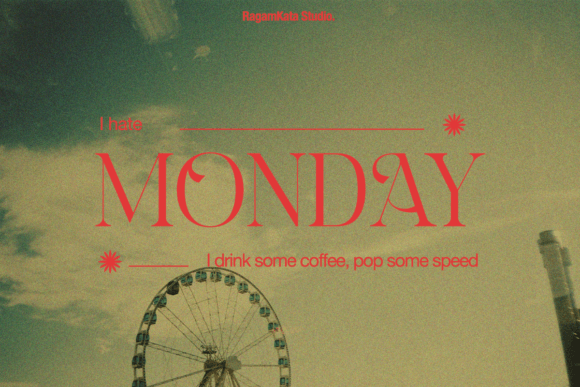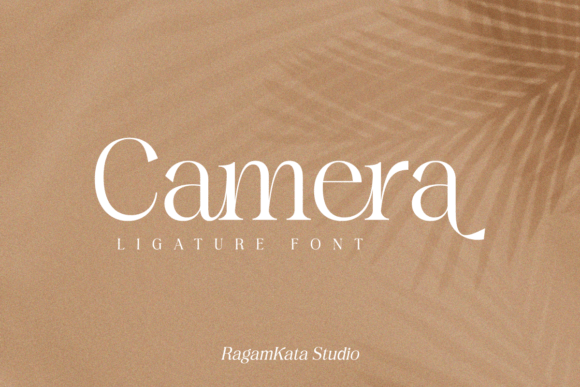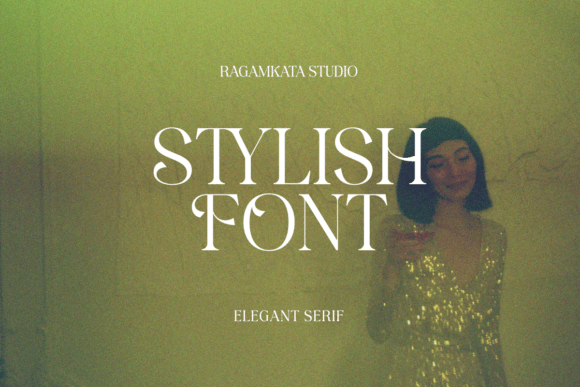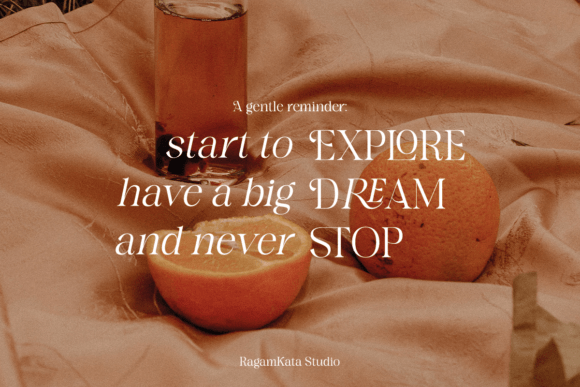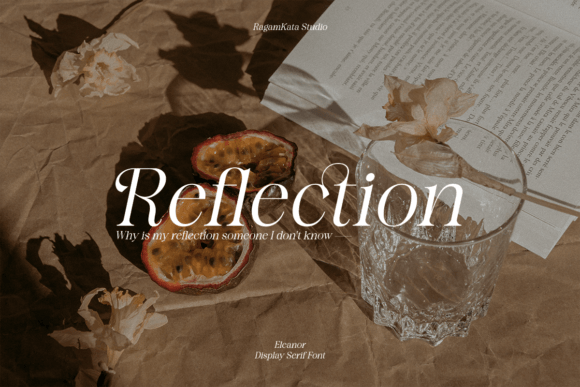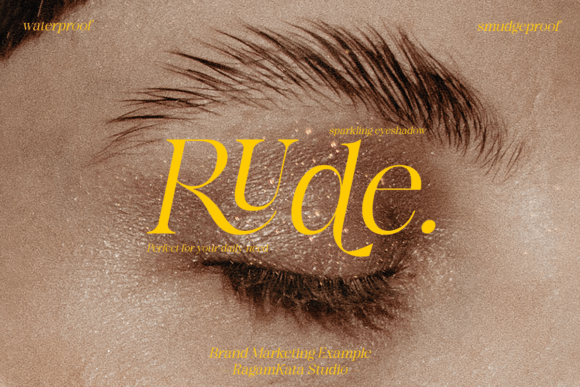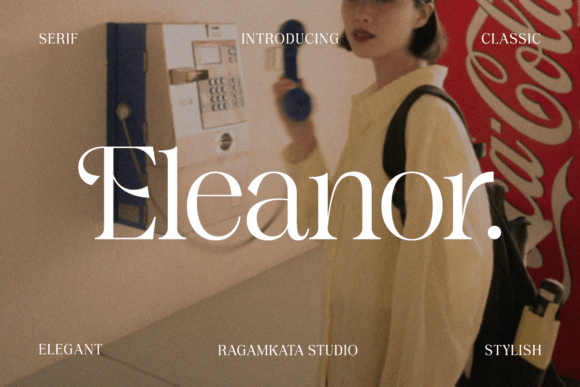
Eleanor Font: Elevate Your Designs with a Stylish and Classic Typeface
Are you a designer or crafter looking for a font that can add a touch of elegance and sophistication to your projects? Look no further than the Eleanor font. This stylish and classic typeface is designed to twist harmoniously together, creating a beautiful visual effect that will make your designs stand out. In this article, we’ll take a closer look at the Eleanor font, its features, and how you can use it to elevate your designs.
What is the Eleanor Font?
The Eleanor font is a stunning typeface that is perfect for designers and crafters who want to add a touch of class and style to their projects. With its elegant and refined design, this font is ideal for a wide range of applications, from branding and advertising to packaging and digital media. The Eleanor font is designed to be versatile and easy to use, making it a great choice for anyone who wants to create professional-looking designs without spending hours agonizing over font choices.
Key Features of the Eleanor Font
So, what makes the Eleanor font so special? Here are just a few of its key features:
- Stylish and Classic Design: The Eleanor font has a timeless design that is both stylish and classic. Its elegant lines and refined curves make it perfect for creating sophisticated designs that will impress your clients or audience.
- Twists Harmoniously Together: One of the unique features of the Eleanor font is the way it twists harmoniously together. This creates a beautiful visual effect that adds depth and interest to your designs.
How to Use the Eleanor Font
So, how can you use the Eleanor font in your designs? Here are a few ideas to get you started:
- Branding and Advertising: The Eleanor font is perfect for creating professional-looking logos, brochures, and advertisements. Its elegant design and sophisticated feel make it ideal for businesses that want to establish a strong brand identity.
- Packaging Design: If you’re a crafty person who loves to create handmade products, the Eleanor font is a great choice for labeling and packaging. Its stylish design and easy-to-read font make it perfect for adding a personal touch to your products.
- Digital Media: The Eleanor font is also great for digital media, including social media graphics, blog posts, and website designs. Its clean and elegant design makes it easy to read on a variety of devices.
Tips for Getting the Most Out of the Eleanor Font
Here are a few tips for getting the most out of the Eleanor font:
- Experiment with Different Sizes and Colors: Don’t be afraid to experiment with different sizes and colors of the Eleanor font. Its elegant design looks great in a variety of sizes and colors, so don’t be afraid to try something new.
- Pair it with Other Fonts: The Eleanor font pairs well with a variety of other fonts, so don’t be afraid to try pairing it with something new. This can add visual interest and create a unique look.
- Use it Consistently: To get the most out of the Eleanor font, use it consistently across all of your designs. This will help to establish a strong brand identity and make your designs look professional and cohesive.
| Author | RagamKata Studio |
In conclusion, the Eleanor font is a stylish and classic typeface that is perfect for designers and crafters who want to add a touch of elegance and sophistication to their projects. With its elegant design, PUA encoding, and easy-to-use features, this font is ideal for a wide range of applications. Whether you’re creating professional-looking logos, labeling handmade products, or designing digital media, the Eleanor font is a great choice. So why not give it a try and see how it can elevate your designs?